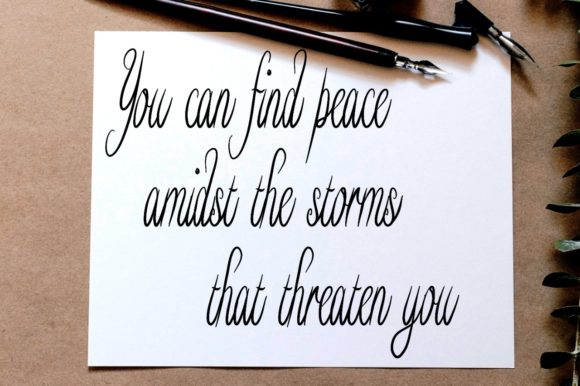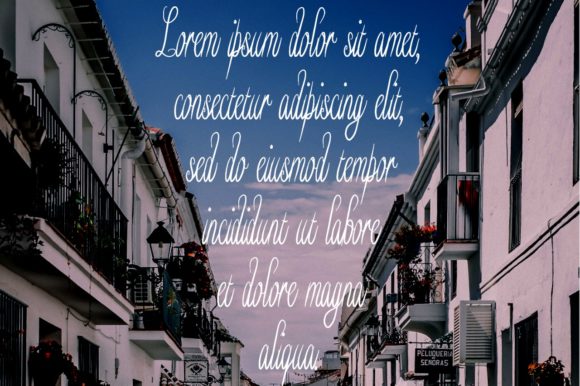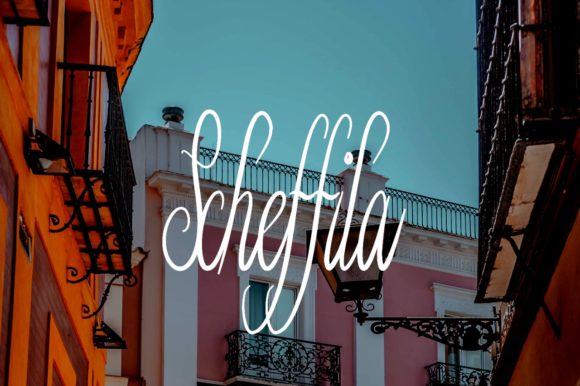
Introduction to Schefilla Font
Have you ever found yourself staring at a blank canvas, pencil in hand, searching for the perfect font to bring your creative project to life? For designers, this moment is all too familiar. It’s the moment when the perfect design resource can make all the difference.
That’s where the Schefilla Font comes in – a high-quality, flowing handwritten font that exudes elegance and sophistication. With its unique, timeless style, this font is perfect for designers looking to add a touch of class to their projects. Whether you’re working on a free download or a paid design, Schefilla Font is a valuable addition to any designer’s toolkit.
Imagine adding a touch of whimsy to your design with a transparent background, or elevating your brand’s aesthetic with a bold, eye-catching font. With Schefilla Font, the possibilities are endless, and the results are always stunning.
Key Features of Schefilla Font
- Unique, modern font with a transparent background, allowing for seamless integration with any design.
- Features a clean and minimalist design, making it perfect for use in logos, headings, and body text.
Honest Review: Schefilla Font
As a designer, I’m always on the lookout for high-quality design resources to elevate my creative projects. Recently, I stumbled upon the Schefilla Font, and I’m excited to share my honest review with you.
- ✨ The Schefilla Font boasts a unique, modern design that’s perfect for making a statement in your creative projects.
- ✨ The transparent background feature allows for seamless integration with any design element.
- ⚠️ The font library is relatively small, which may limit its versatility for more complex design projects.
Overall, I’m impressed with the Schefilla Font’s design and features. While it may not be the most comprehensive font library, it’s an excellent resource for designers looking for a unique, modern font for their creative projects. If you’re looking for a high-quality, free design resource, the Schefilla Font is definitely worth checking out.
The Schefilla Font is ideal for creative projects that require a unique and eye-catching font. Use it for logos, branding, and marketing materials to give your project a professional edge.